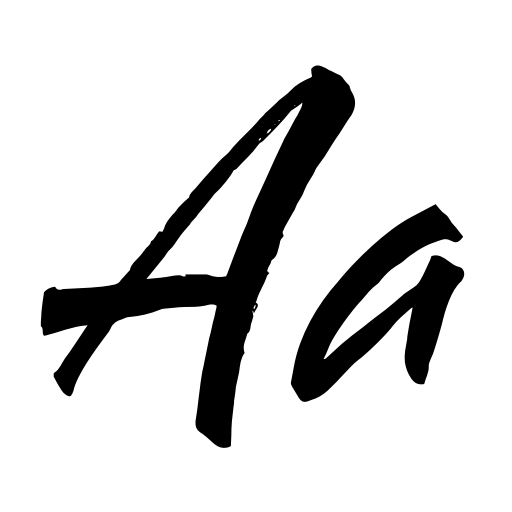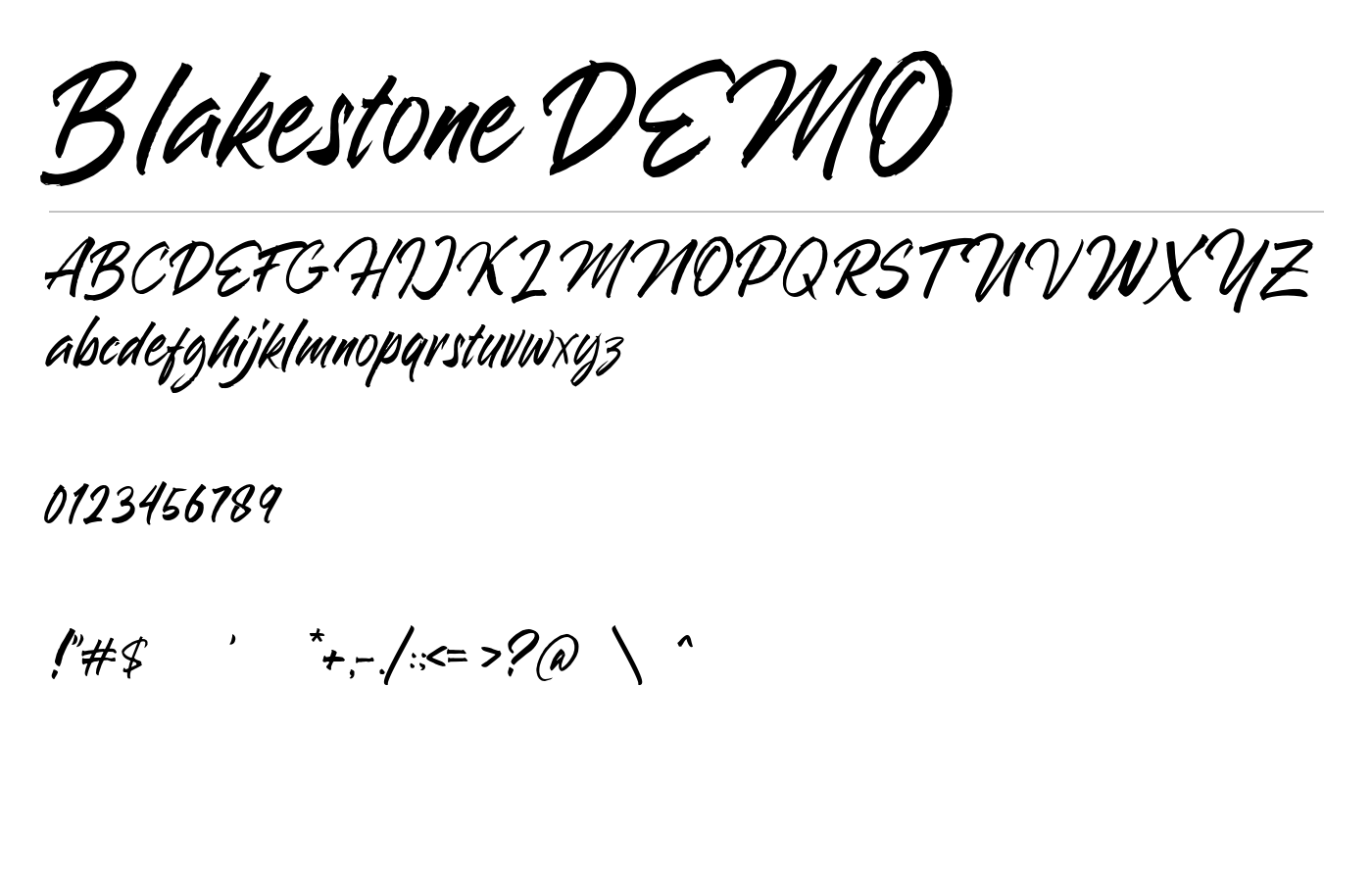
Blakestone DEMO is a lively and dynamic script font with a hand-brushed style that conveys energy and personality. Its moderate contrast and flowing strokes make it perfect for creative branding, invitations, and expressive headlines where a casual yet distinctive look is desired. This font stands out for projects that seek an approachable, artistic touch without sacrificing readability.
Blakestone DEMO Font
About Blakestone DEMO Font
| Font family | Blakestone DEMO Font |